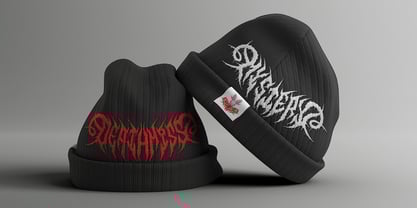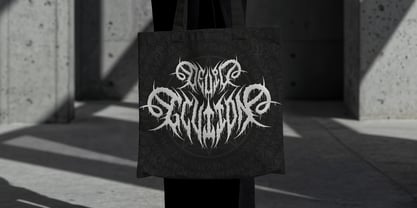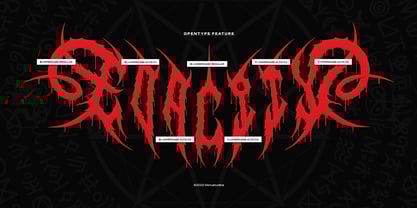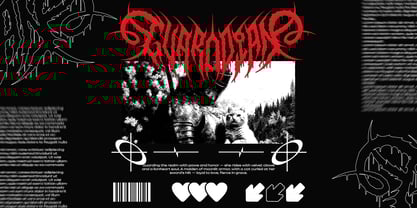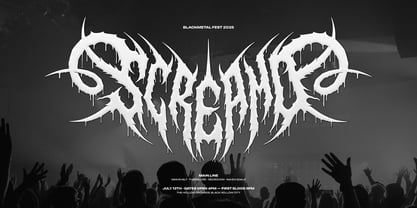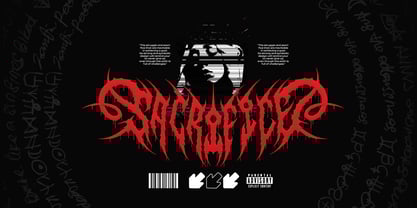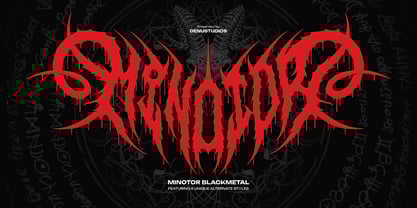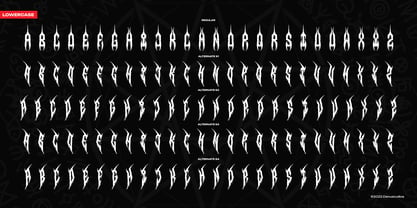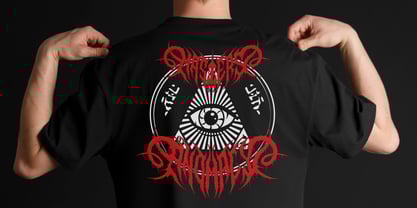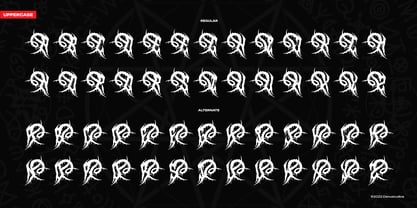
Minotor
The Minotor Font Family was designed by Dede Nugraha and published by Denustudio. Minotor contains 1 styles.
Minotor | Black Metal Font, from Denustudios, suitable for any projects such as: logos, branding projects, homeware designs, product packaging, mugs, quotes, posters, shopping bags, t-shirts, book covers, name card, invitation cards, greeting cards, label, photography, watermark, special events, and all your other lovely projects that need Black Metal Font a taste.
• Alternate and Ligature